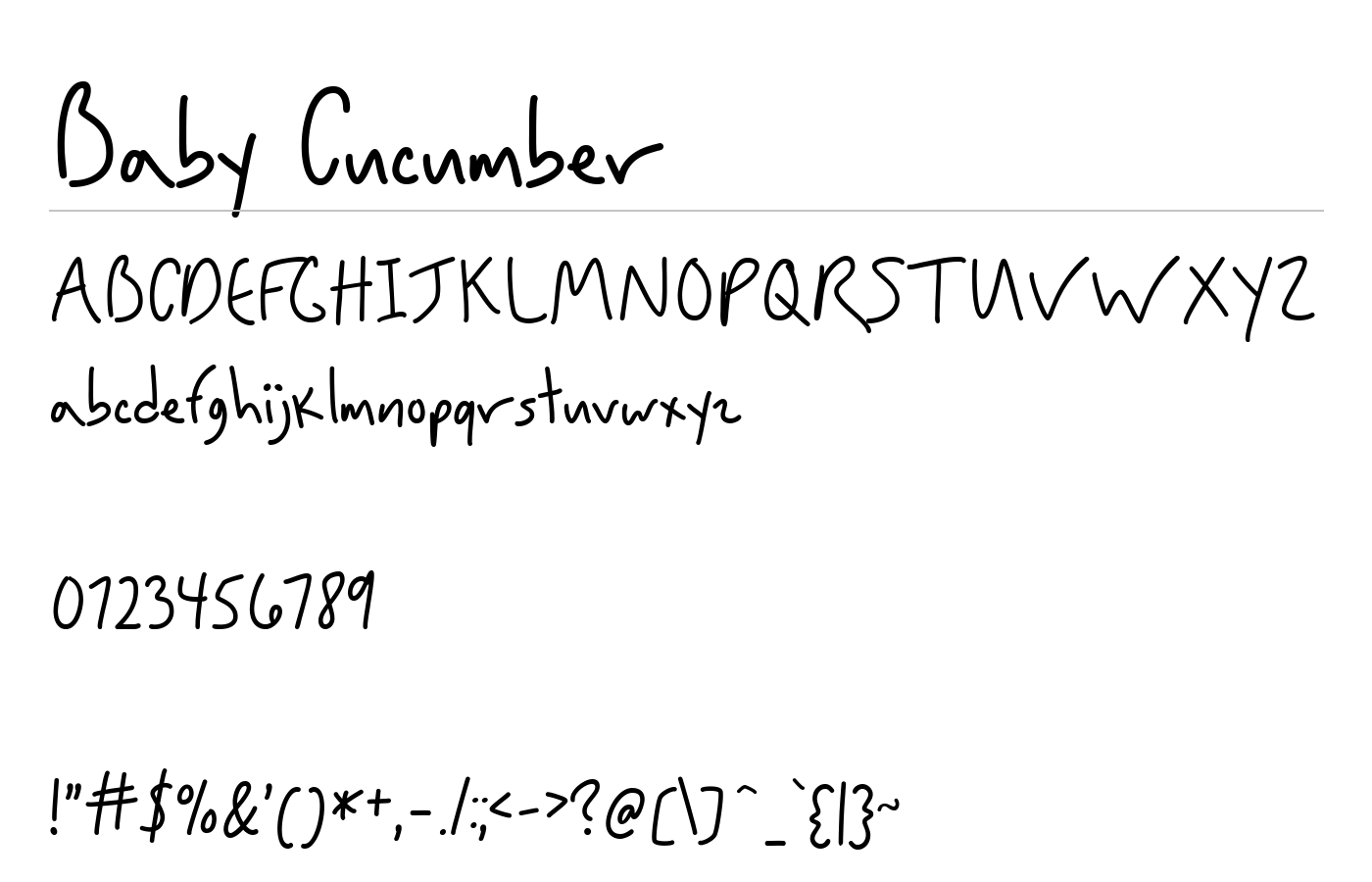
Baby Cucumber is a playful and casual handwritten font with a light weight and a natural, slightly uneven stroke that mimics genuine handwriting. Its tall x-height and airy spacing make it friendly and approachable, perfect for informal designs, personal projects, or creative branding that seeks a warm, authentic touch. This font works well for greeting cards, kids’ products, and social media graphics where a relaxed and personal vibe is desired.
Baby Cucumber Font
About Baby Cucumber Font